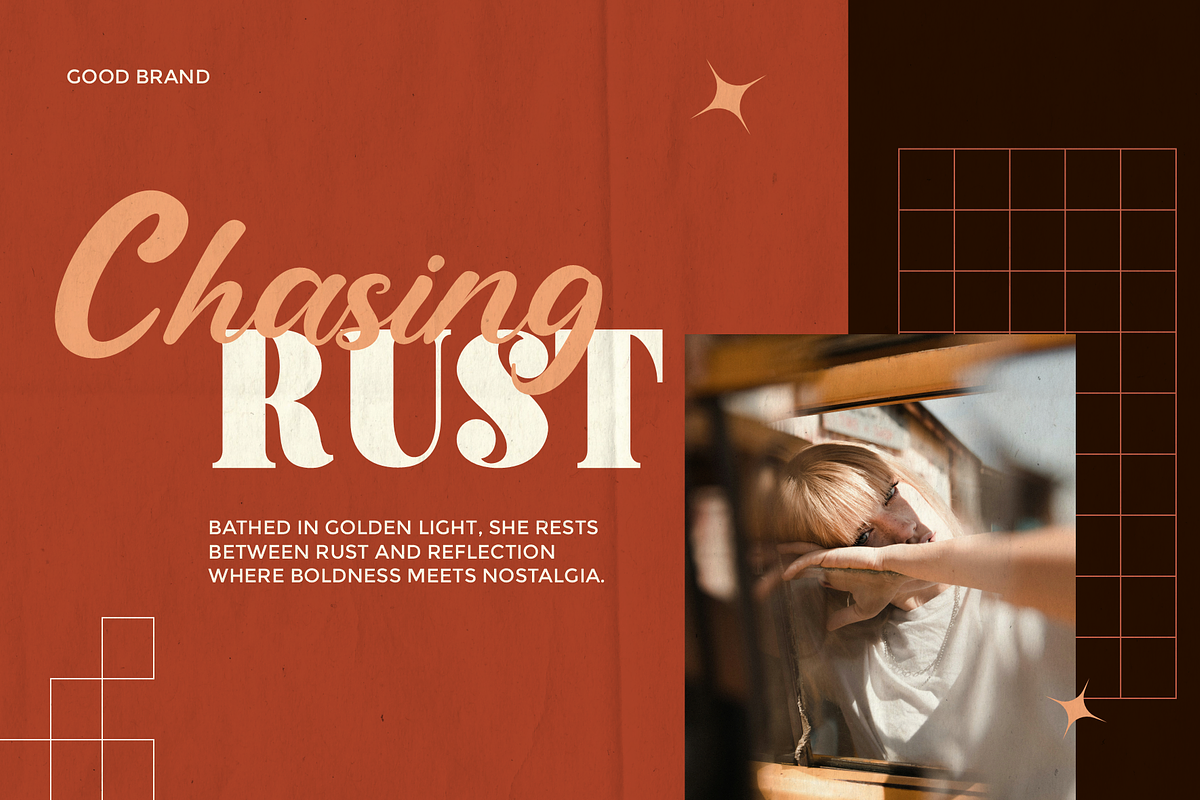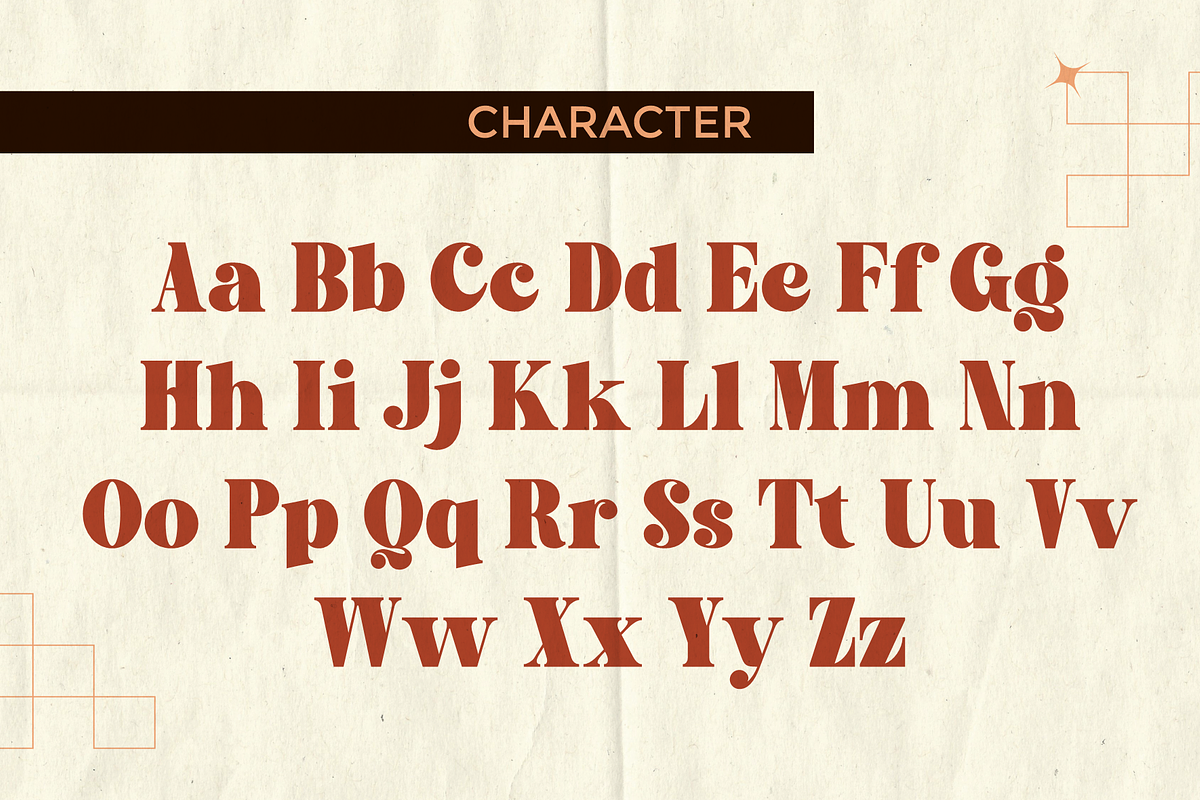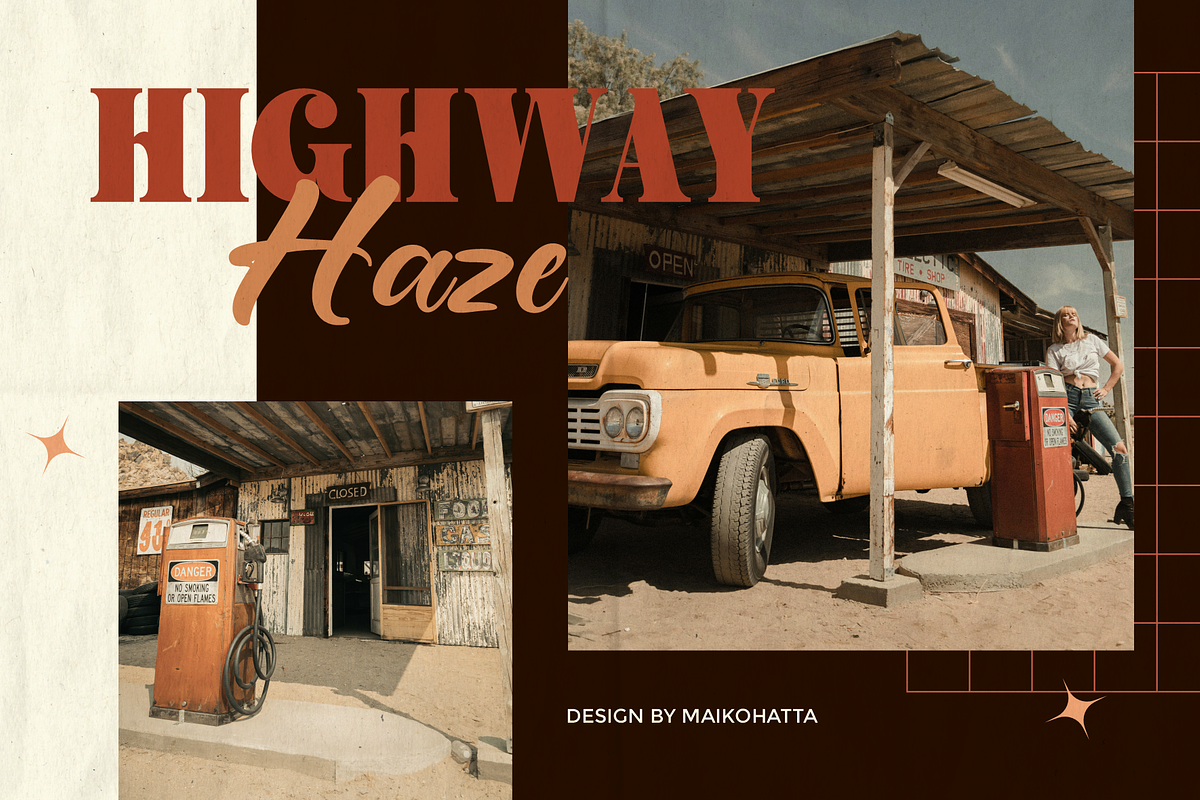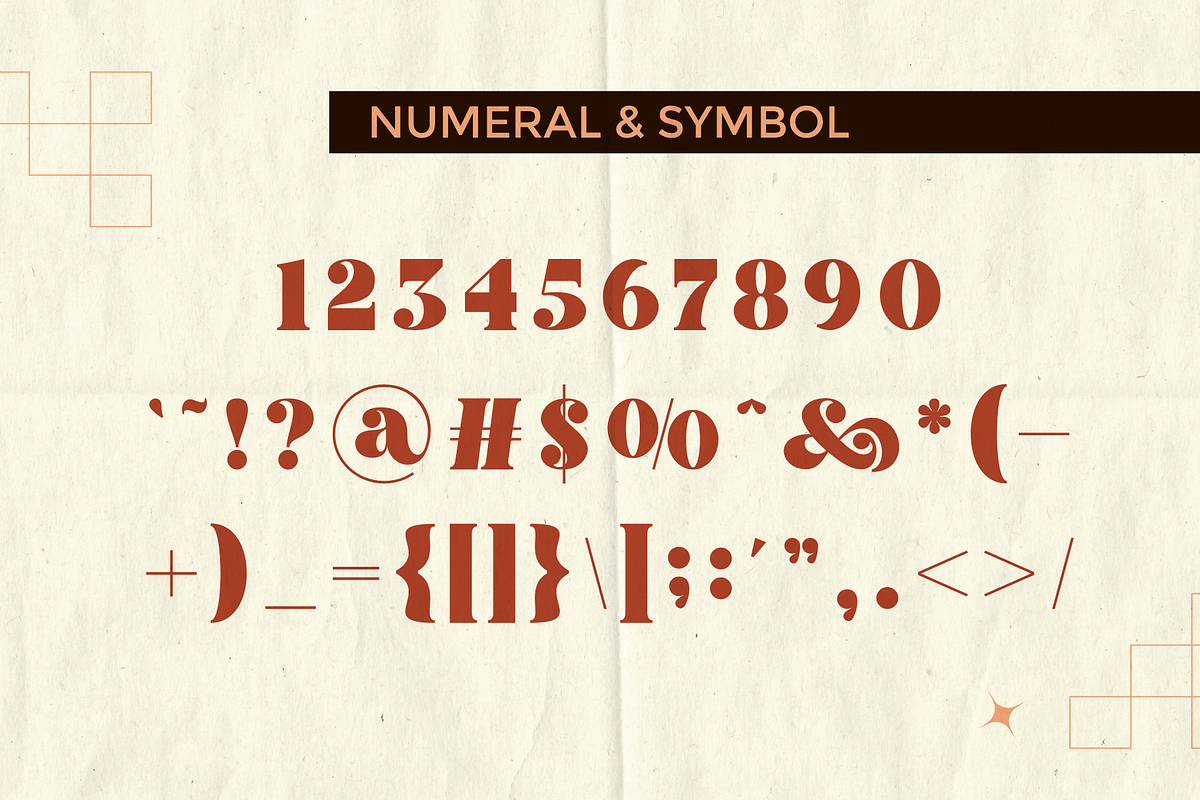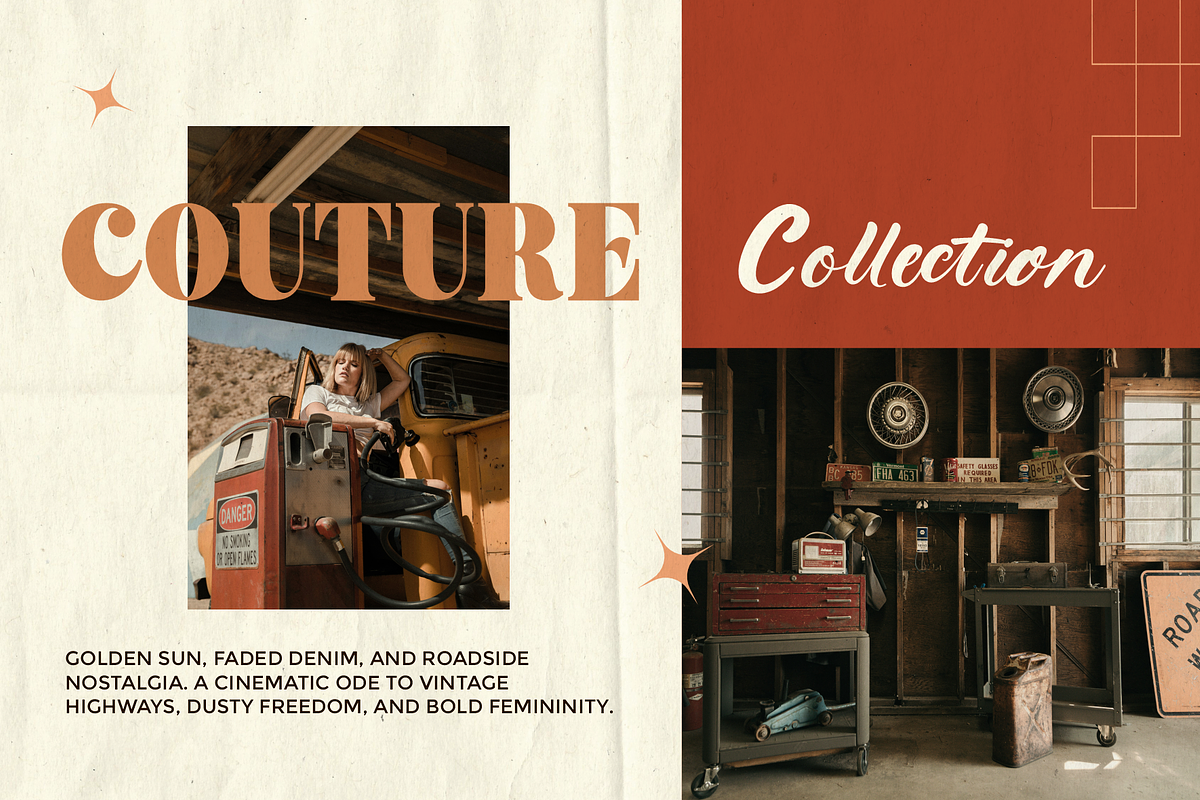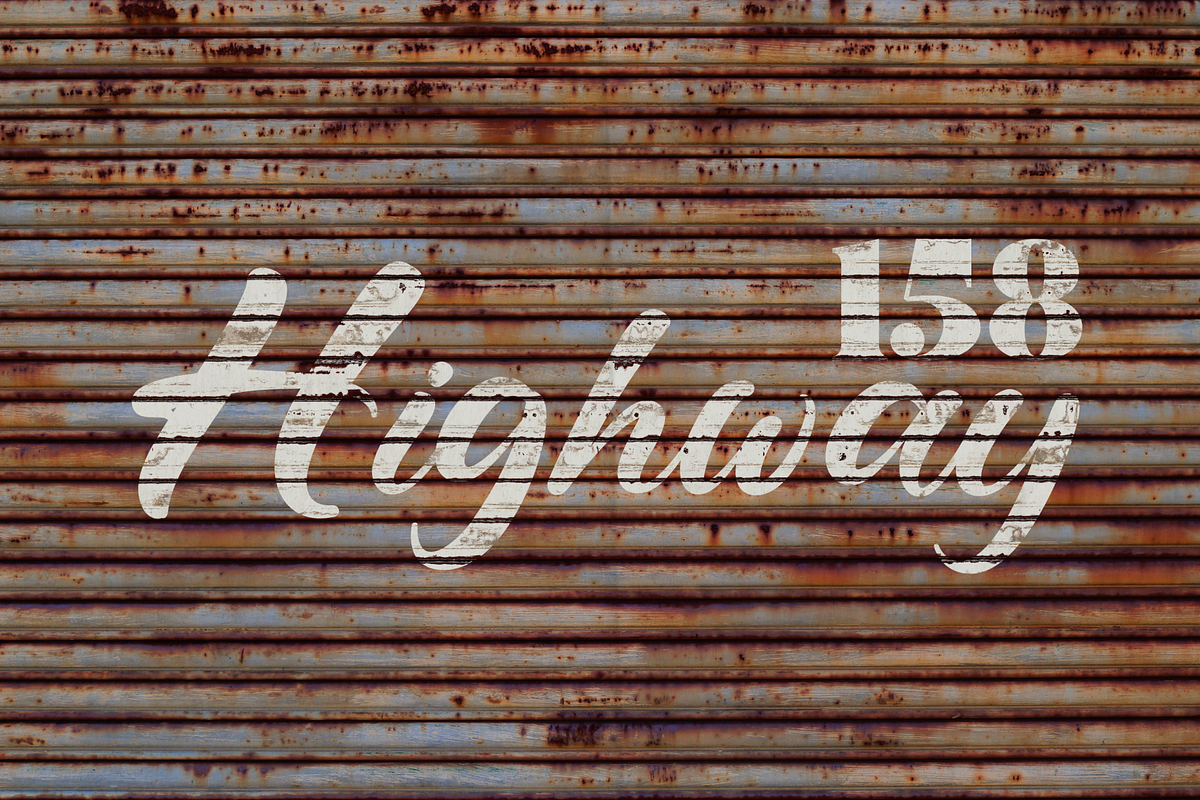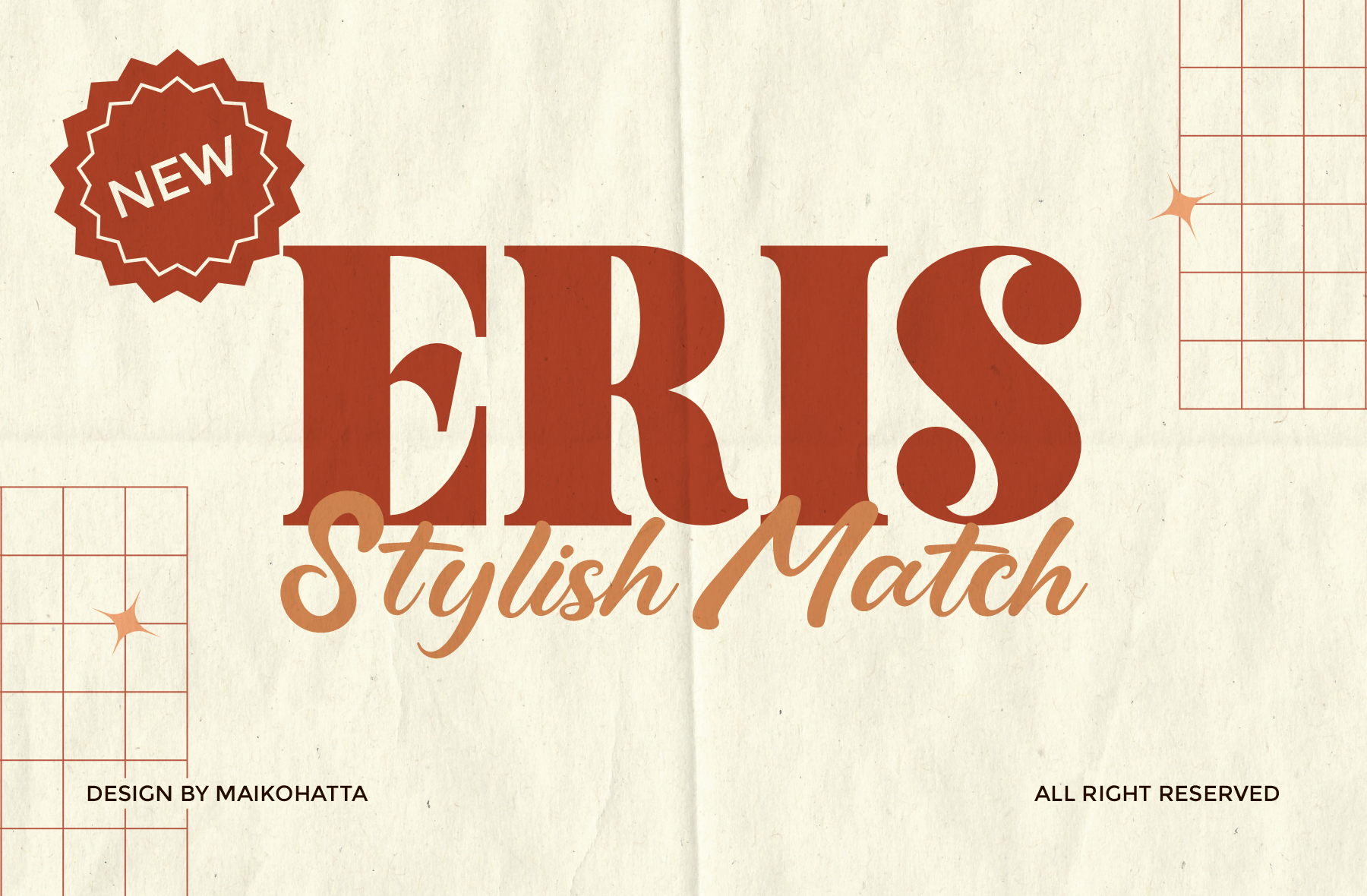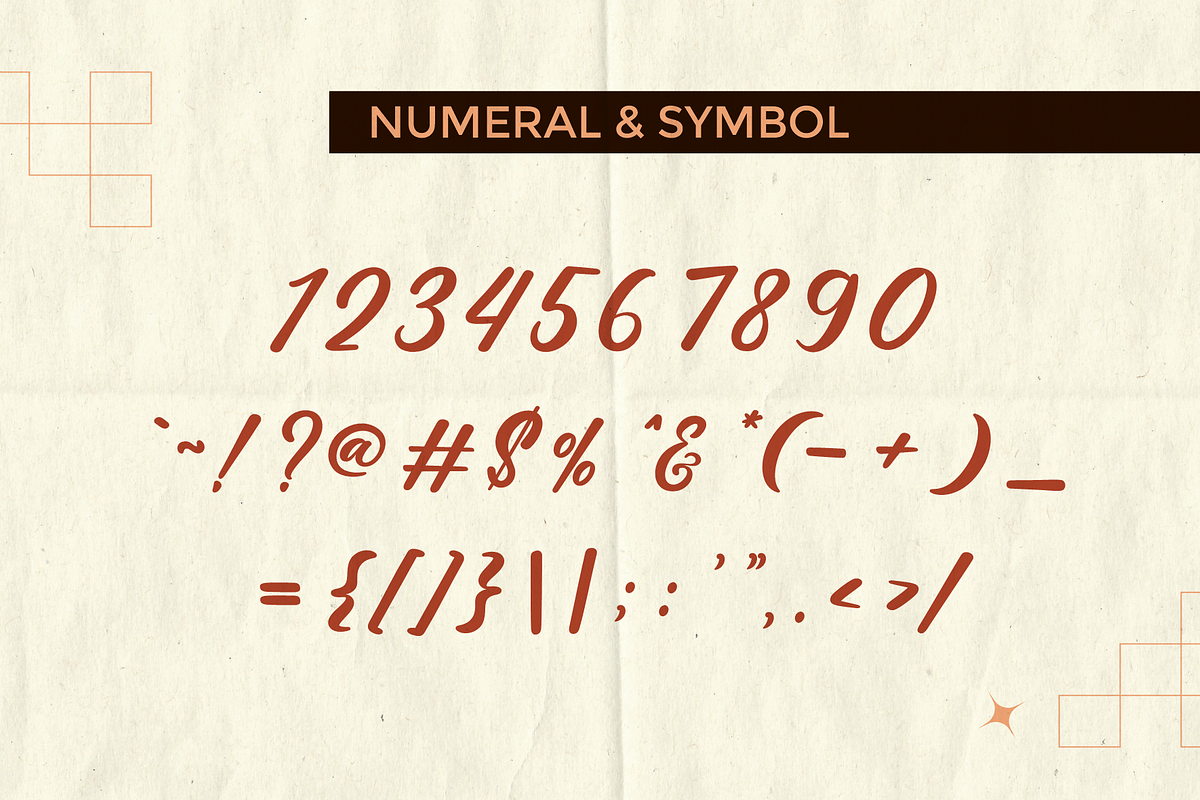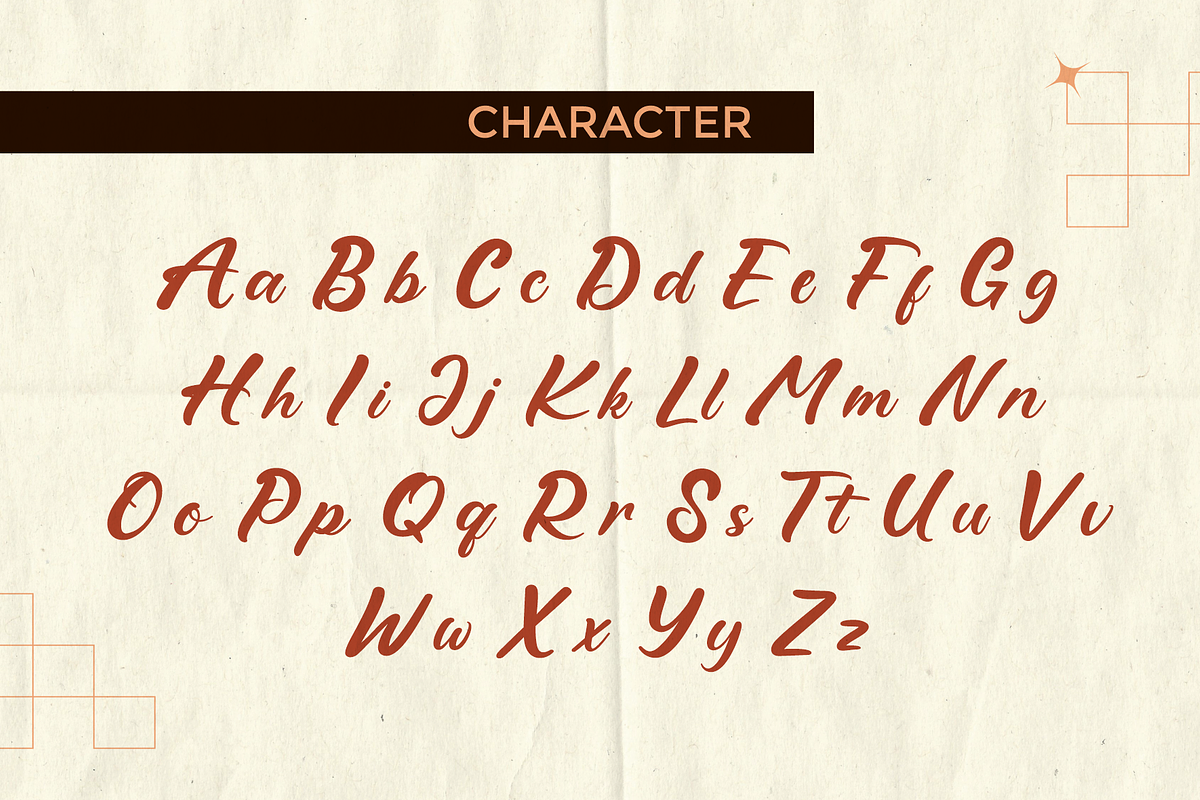
Eris - Font Duo Tyeface
Introducing our new product Eris Font Duo Tyeface
Introducing New Typeface Eris is a versatile and unique typeface that comes in two distinct styles: serif and Script. Each style brings its own flavor and character.
Eris Serif
A contemporary serif with high contrast, sharp details, and classic charm.
Eris Script
A smooth, flowing script with natural ligatures and an authentic handwritten feel.
In summary, Eris offers a perfect balance between Classic and handcrafted charm through its two styles, Serif and Script. The Serif style brings a contemporary, bold clean, while the Script style offers a beautiful, handwritten appeal.